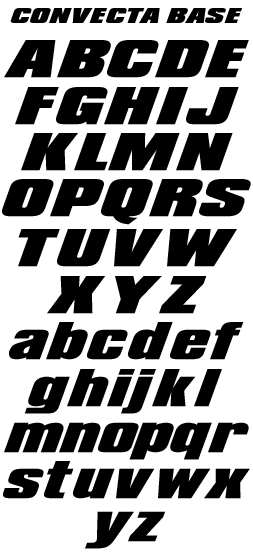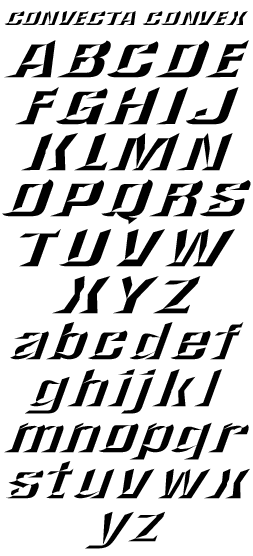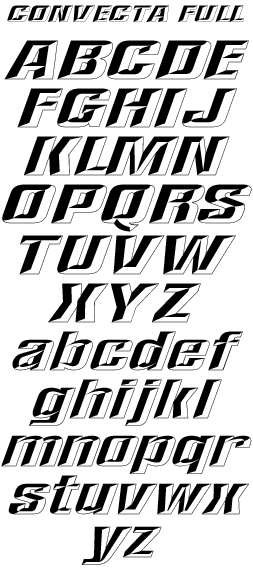
1 Type your text using Convecta Base.
2 Apply your kerning and duplicate the text.
3 Change one line to Convecta Convex.
4 Adjust the colors.
5 Align the top line over the base.
6 Finish off with a bold black outline.
This unique font set allows you to create prismatic-style easily without any editing of the font itself. Allowing you to cut layers separately from two different colors of vinyl. Also very useful in raster programs such as Photoshop. Comes with 3 fonts Convecta Base, Convecta Convex & Convecta Full. Includes lowercase, punctuation and numerals.
Plus numbers, full punctuation & accents